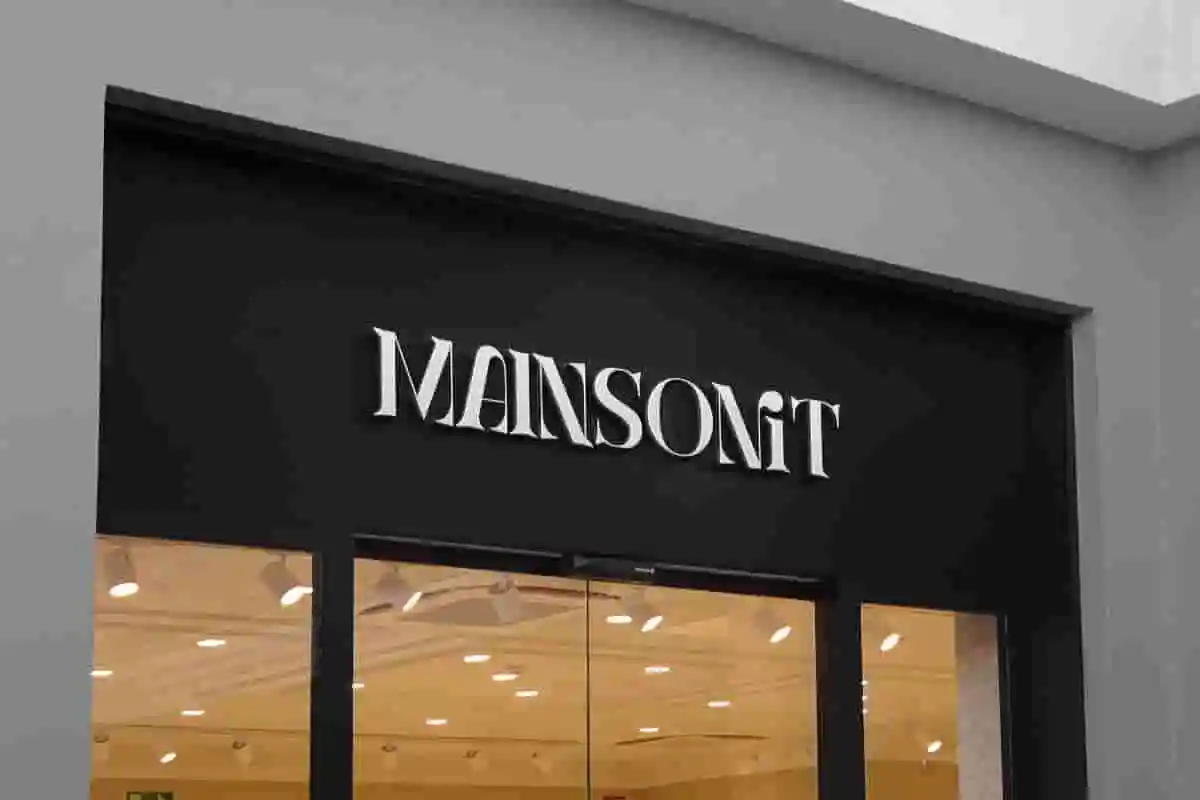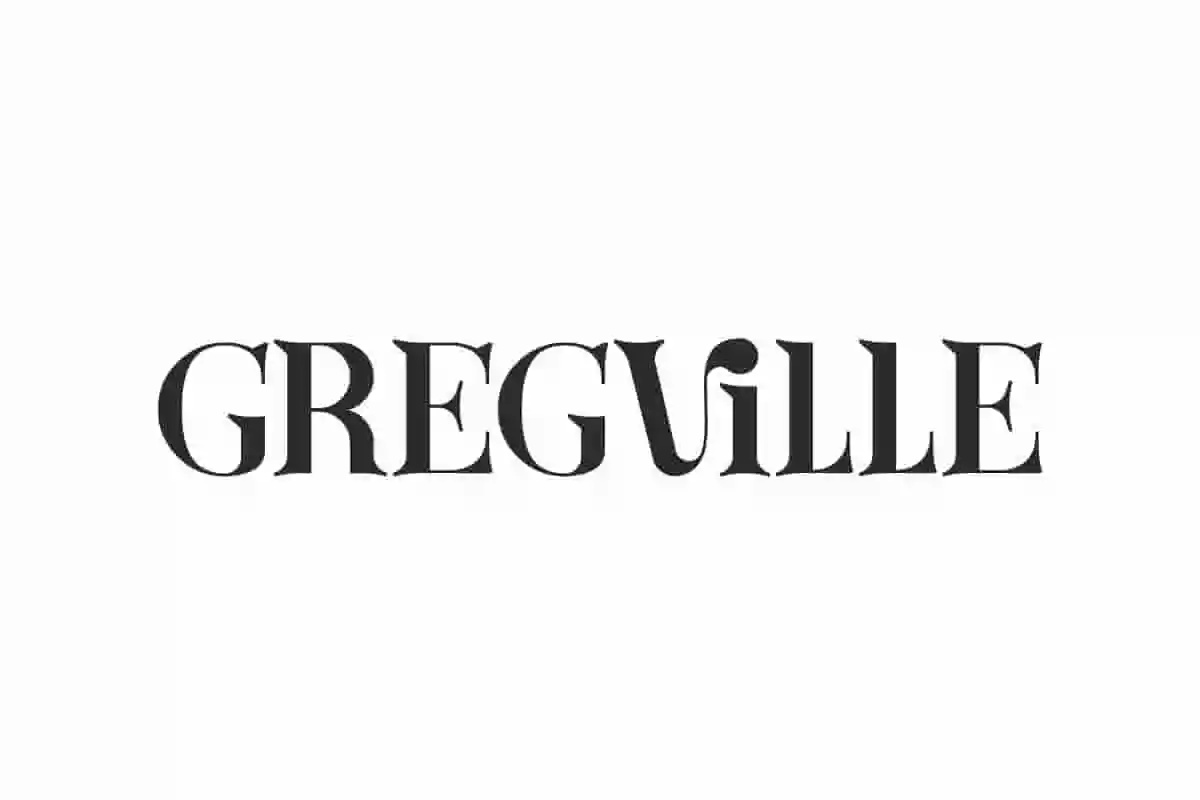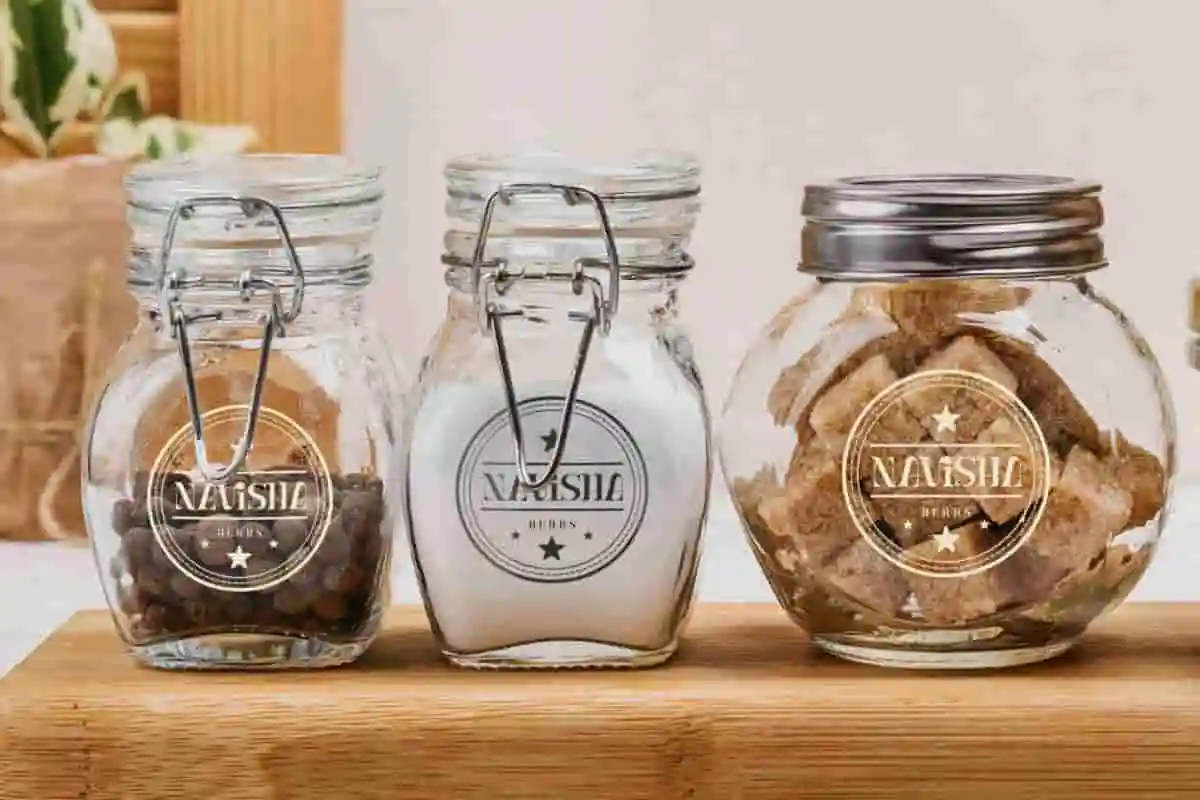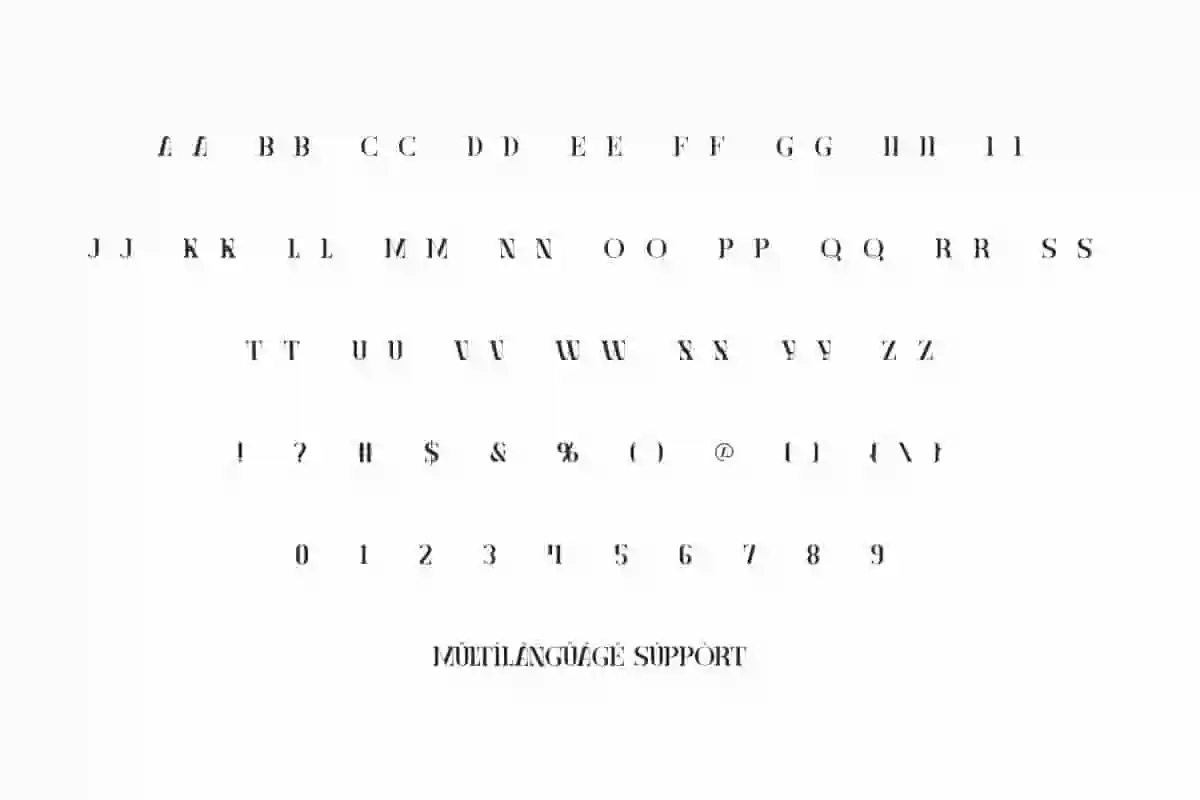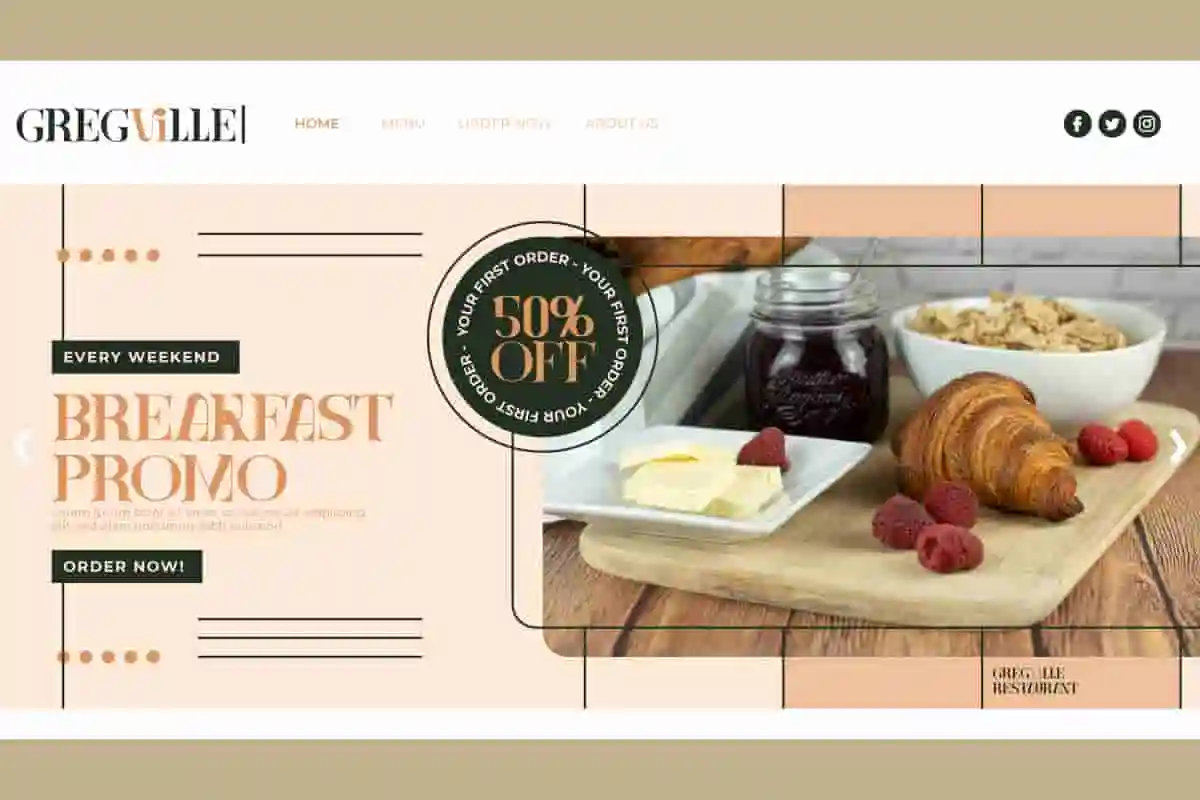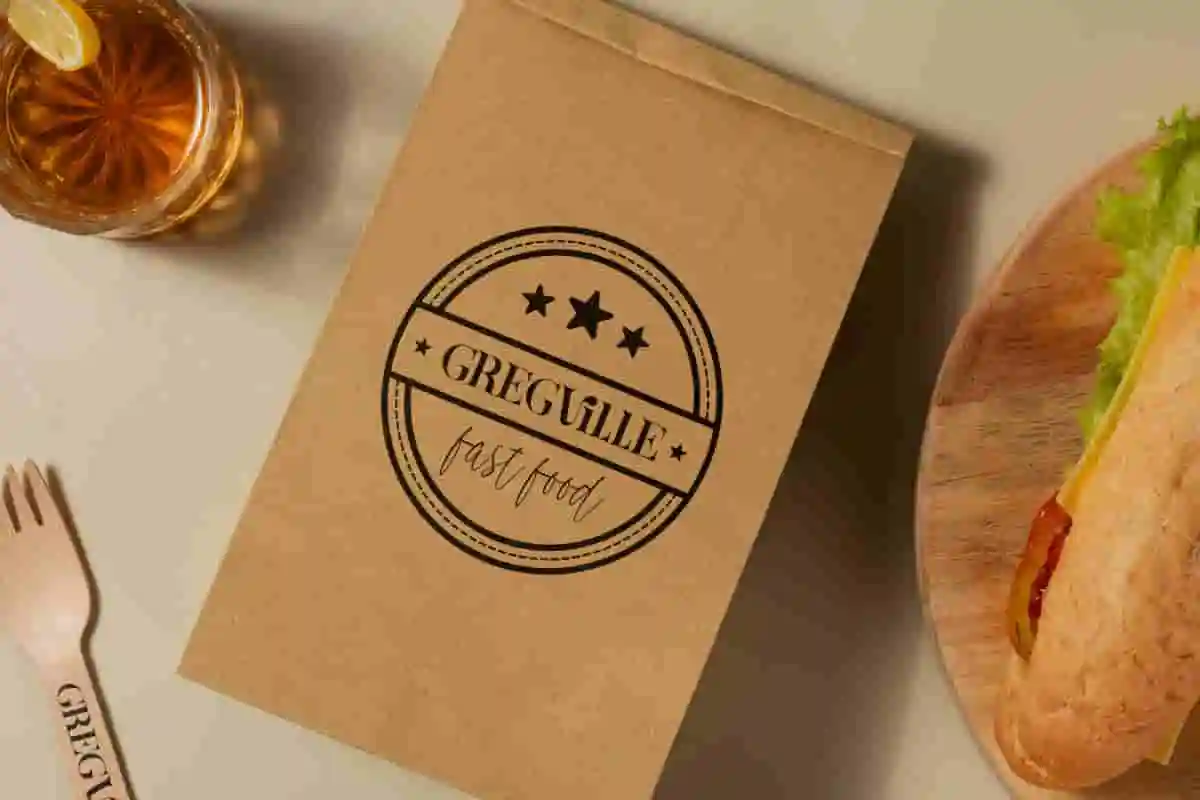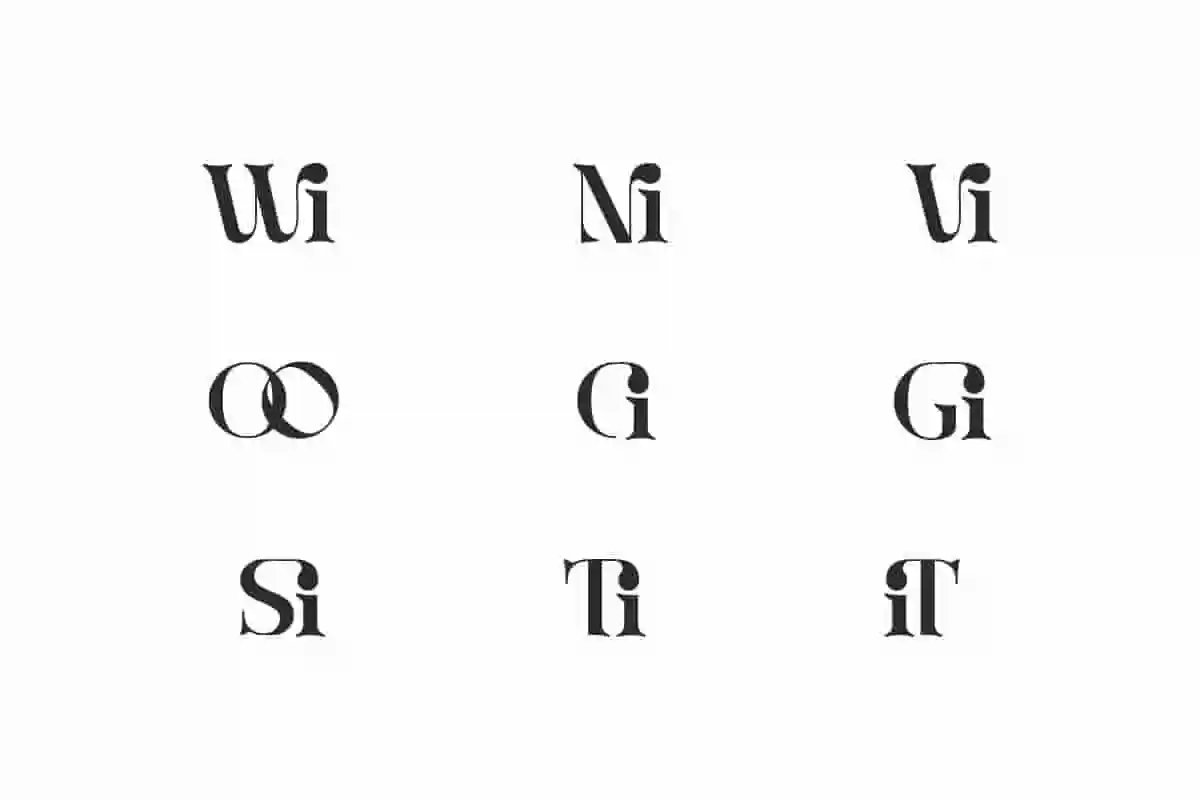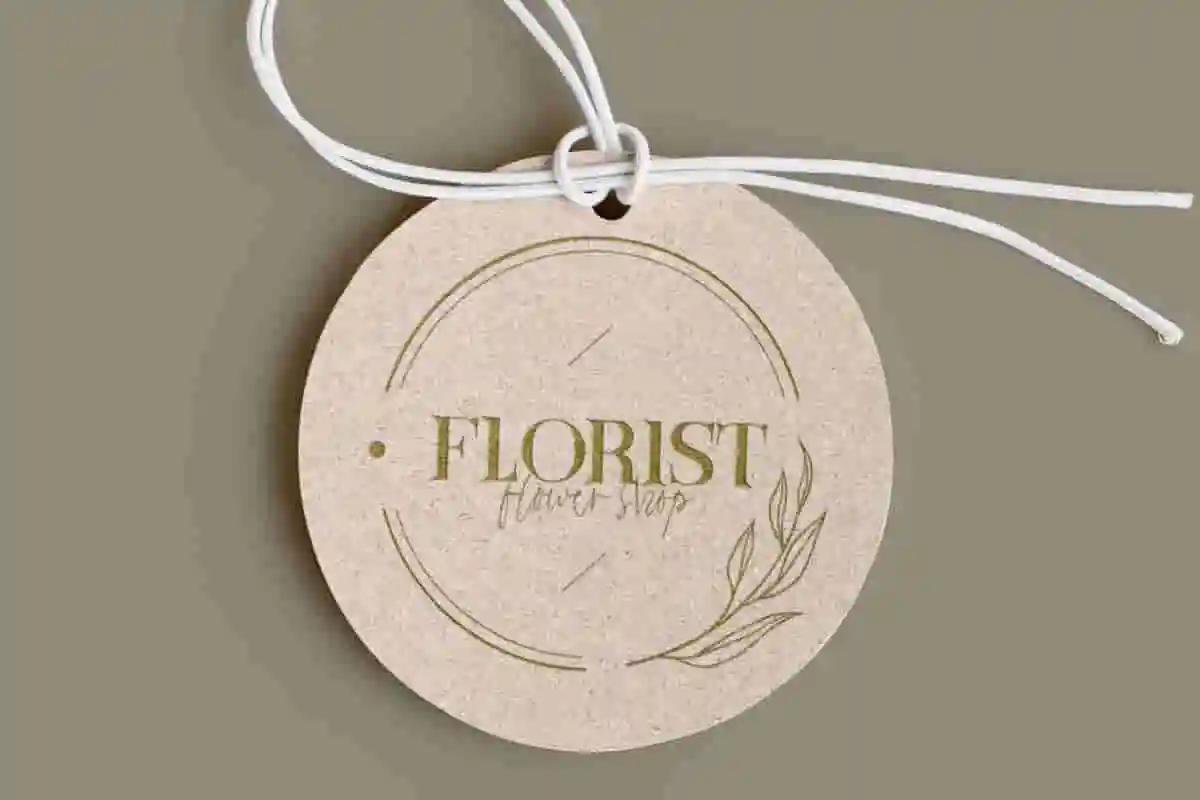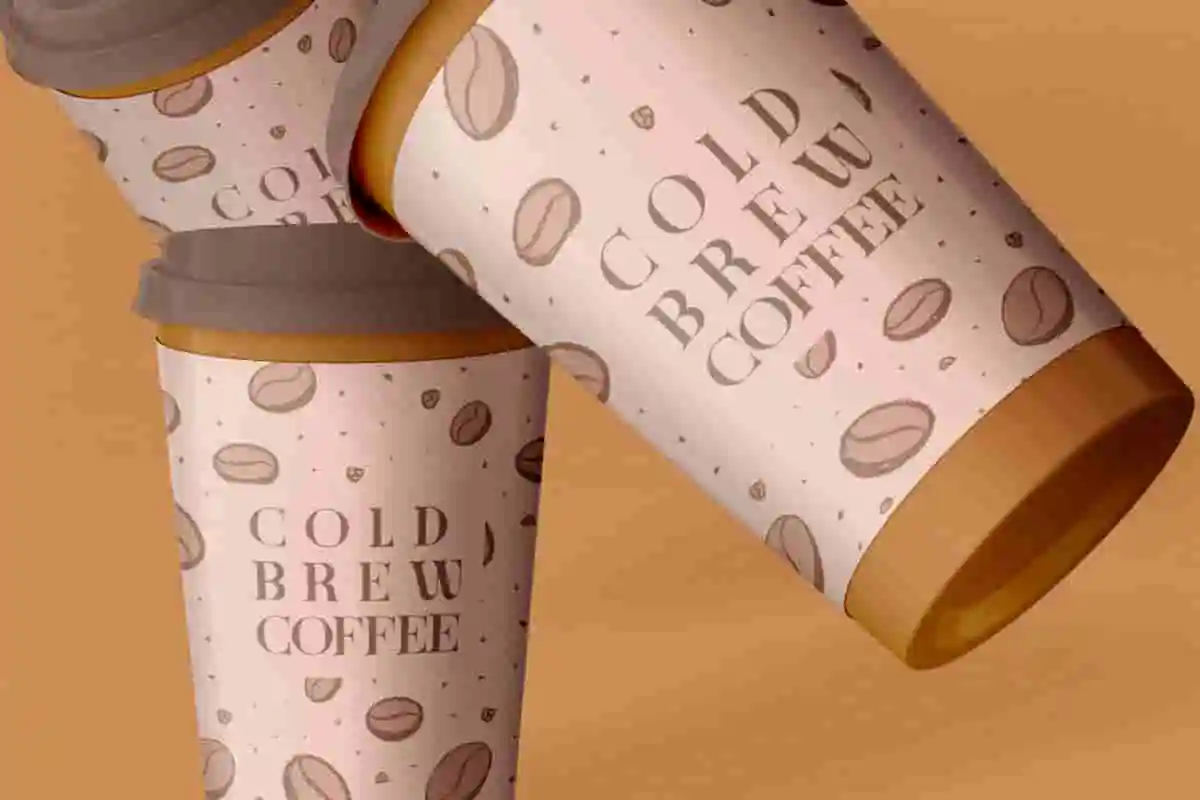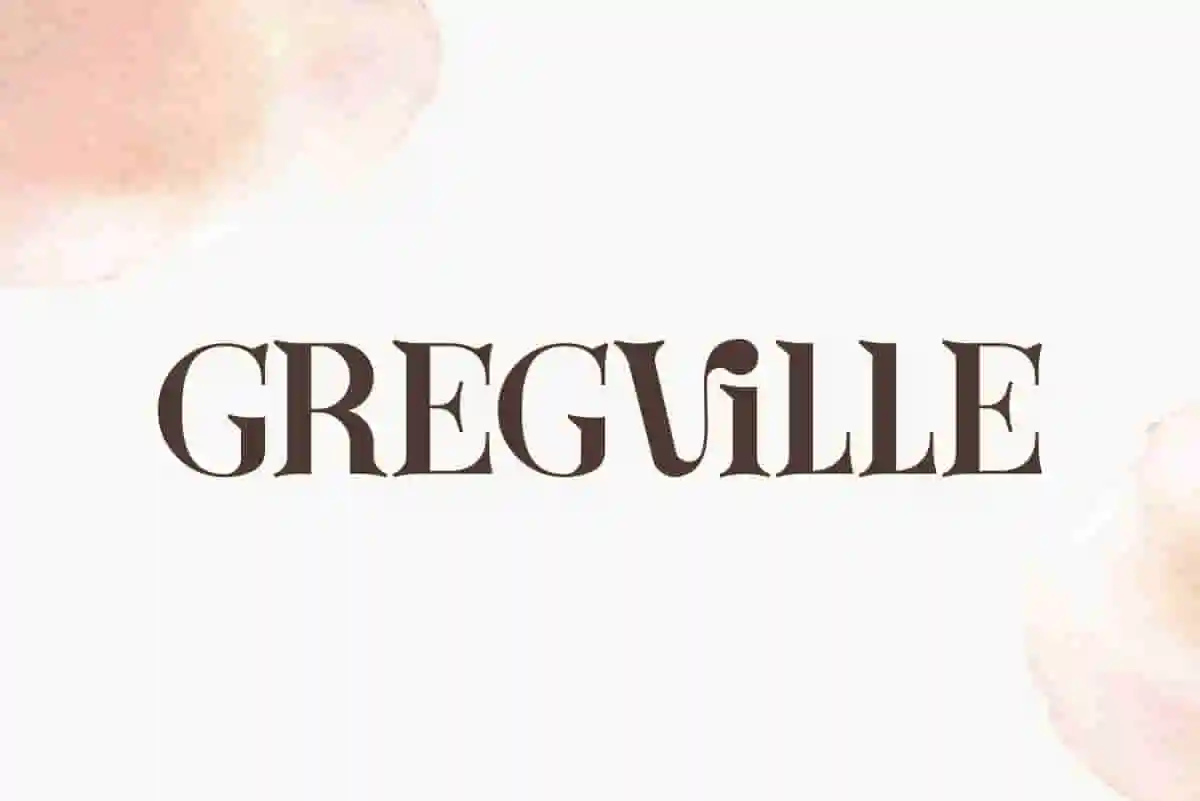
Gregville Font is an epic serif font that brings an air of timeless classics! It is versatile to complement your creative needs.
Gregville Font is a epic serif font display with a timeless classic feel. It will add class to your business, such as architect, café, clothing brand, construction, craftsman, fashion designer, florist, furniture, menswear, movie, pastry, photography, printing, publishing, restaurant, retail, writer, and many more.
Gregville Font includes a complete set of Basic Characters Uppercase and Lowercase that are ALL CAPS, Number, Punctuation, Symbol, and Ligature. Its retro look can elevate your design in a different way, such as billboard, blogs, brochure, cover magazine, headline, invitation, label, poster, packaging design, screen print, signage, stationery, sticker, title, website, etc.